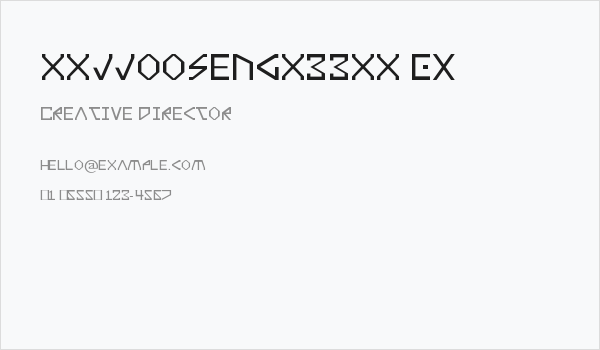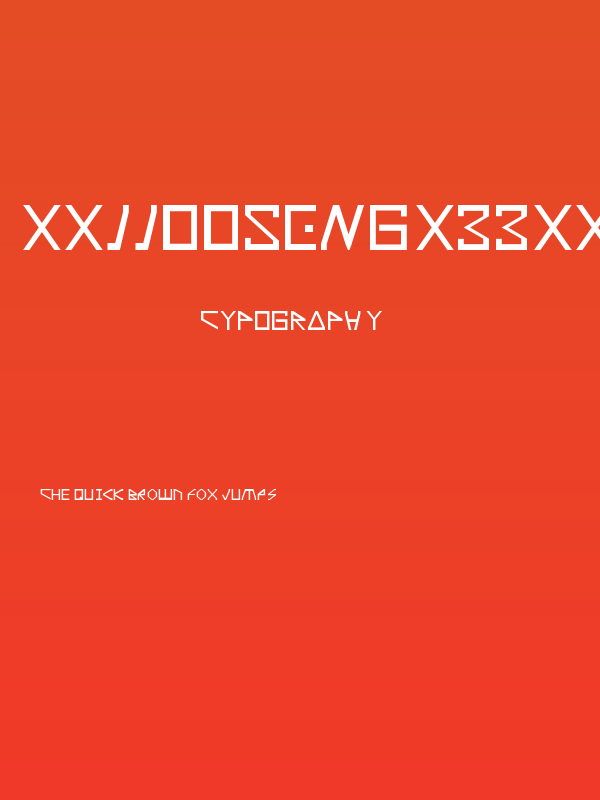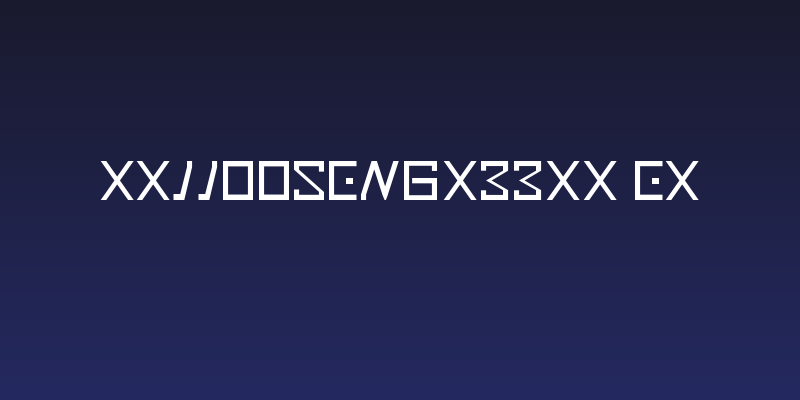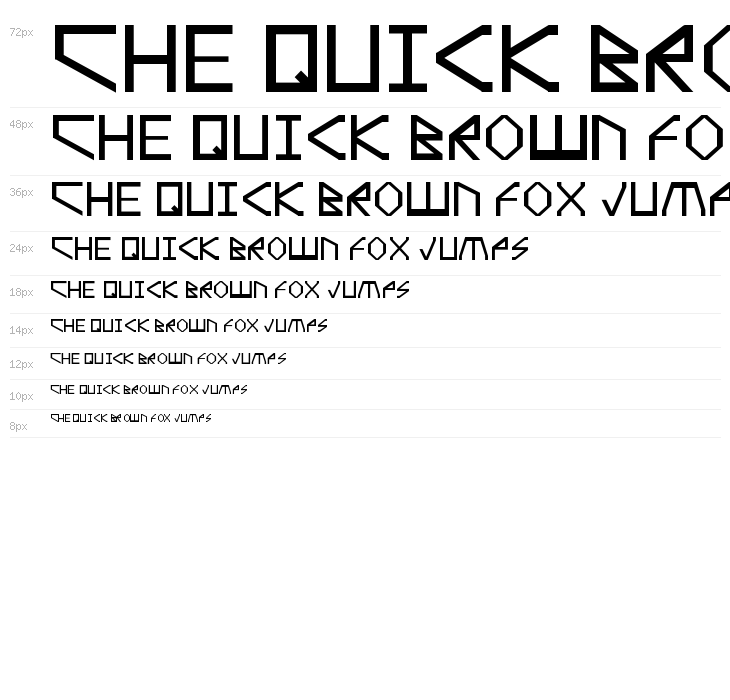
xxjjoosengx33xx EX Font
xxjjoosengx33xx EX Description
This font features a geometric and angular design, characterized by sharp edges and a futuristic aesthetic. The uppercase and lowercase letters share a consistent style, with a focus on symmetry and bold lines. The numerals maintain the same angular theme, providing a cohesive look across all characters. Special characters are designed with the same attention to detail, ensuring they fit seamlessly with the rest of the font. This font is ideal for projects that require a modern and edgy appearance, making it suitable for technology-related themes or creative displays.
| Proposed Projects | Ideal for technology branding, sci-fi posters, video game titles, and modern art installations. |